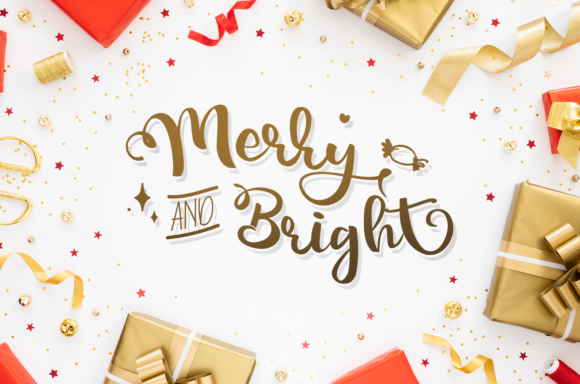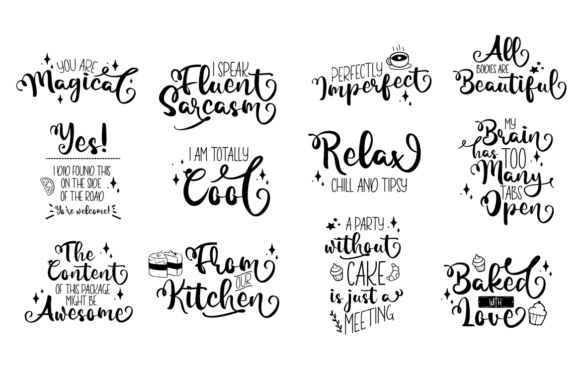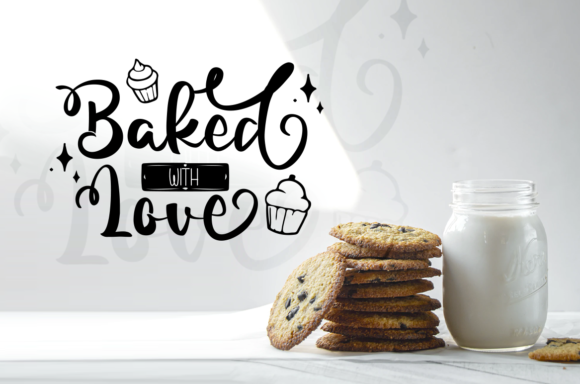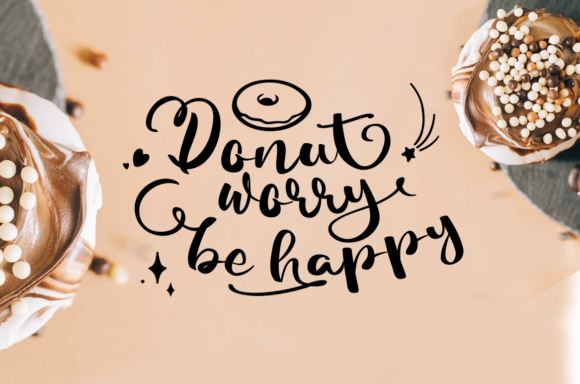
About Magical Font
Magical is a stunning duo font that combines a sans serif and handwritten style to create a beautiful and romantic aesthetic. With its versatile nature, Magical is perfect for a wide range of design projects, from wedding invitations and thank you cards to quotes, greeting cards, logos, and business cards.
The sans serif version of Magical offers a clean and modern look, while the handwritten style adds a touch of personalized charm. By combining the two styles, you can create eye-catching designs that are both elegant and unique.
One of the standout features of Magical is its PUA encoding. This means that you can easily access all of the glyphs and swashes that come with the font. Whether you want to add decorative elements, alternate characters, or stylish swashes, the PUA encoding allows for effortless customization. This gives you the freedom to create truly customized designs that reflect your unique style and vision.
Magical is particularly well-suited for romantic and special occasions. Its elegant and romantic aesthetic adds a touch of magic to wedding invitations, love letters, and other sentimental projects. The handwritten style brings a sense of warmth and personalization, making it ideal for creating heartfelt designs.
However, Magical is not limited to romantic themes alone. Its versatility allows it to be used in various design contexts, including branding, packaging, social media graphics, and more. Whether you’re aiming for a sophisticated and refined look or a whimsical and playful vibe, Magical can adapt to your needs.
In summary, Magical is a beautiful and romantic duo font that combines a sans serif and handwritten style. With its PUA encoding, you can easily access all of the glyphs and swashes for customization. Whether you’re working on wedding invitations, logos, or other design projects, Magical will bring a touch of elegance and customization to your creations. Let the magic of Magical elevate your designs and captivate your audience.